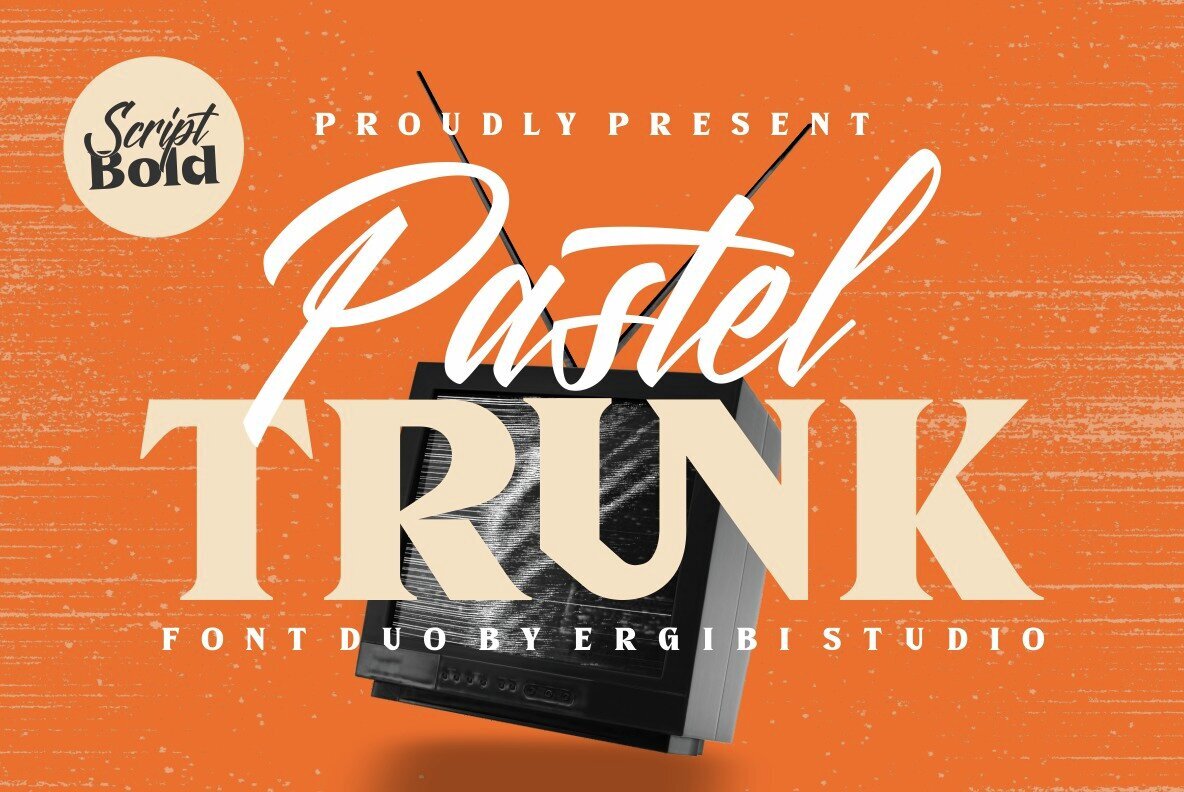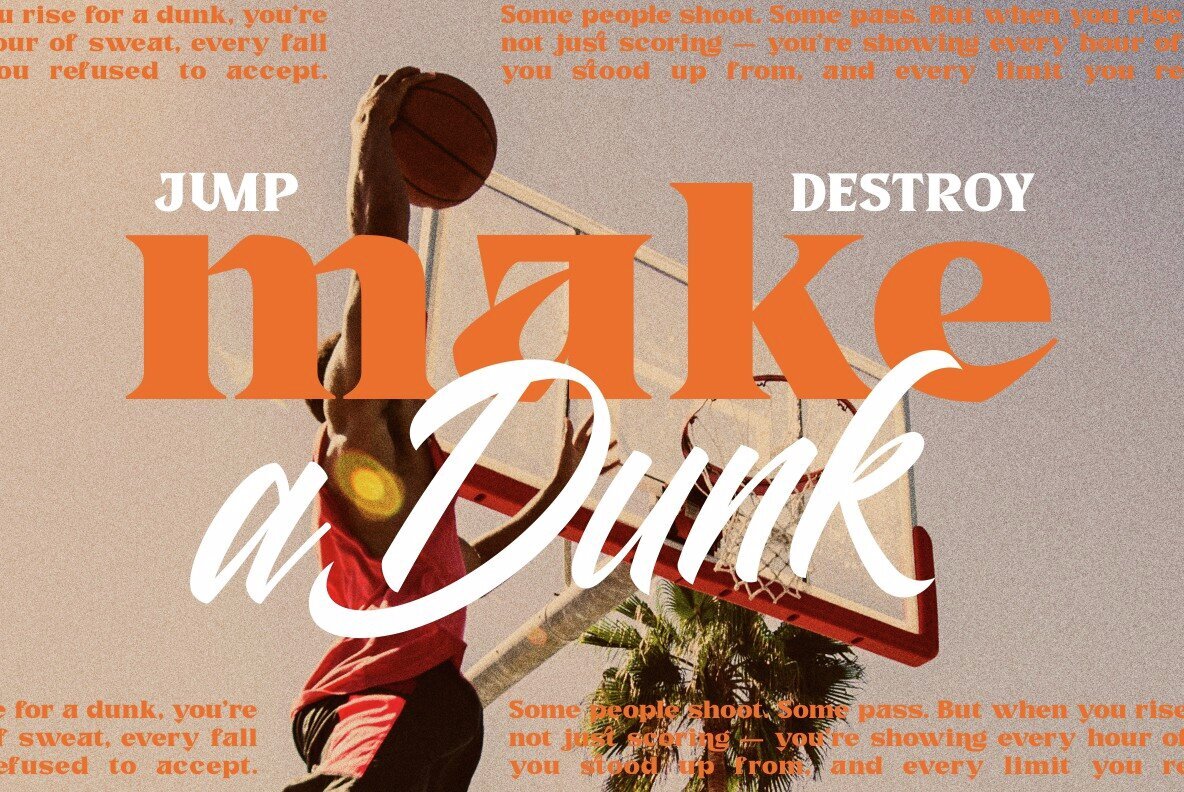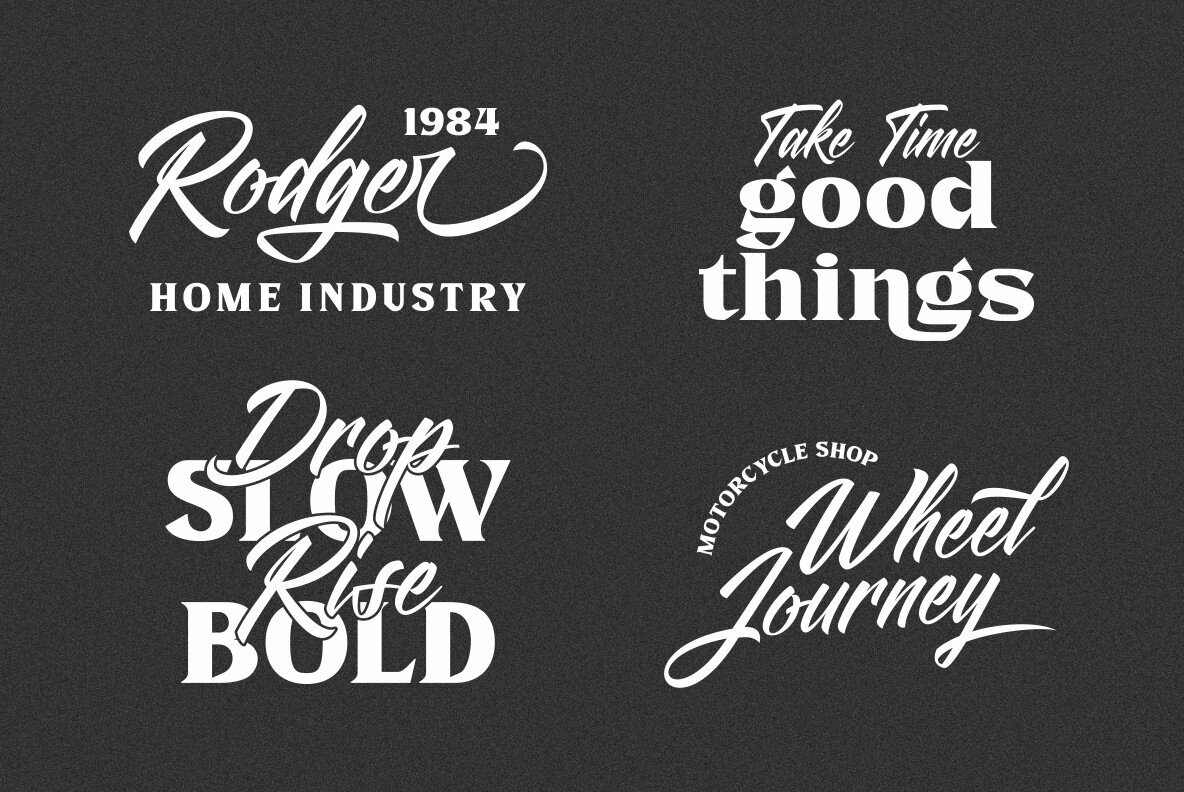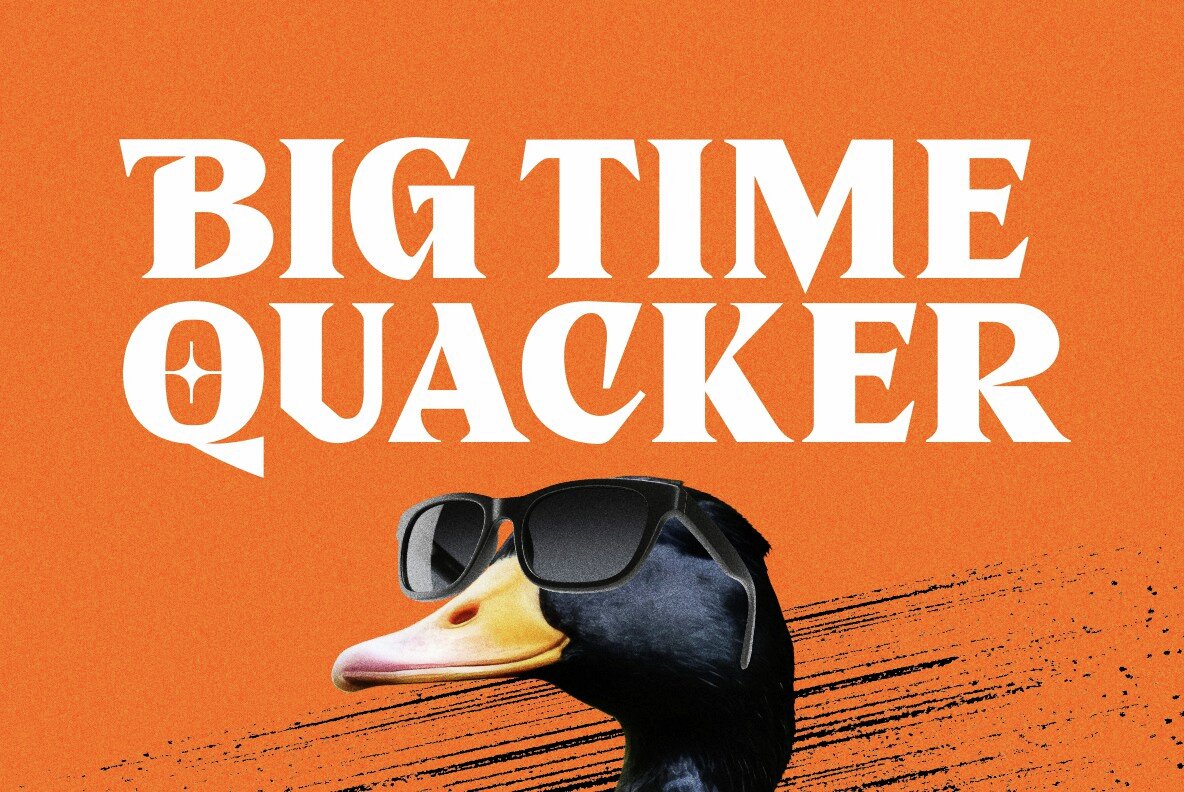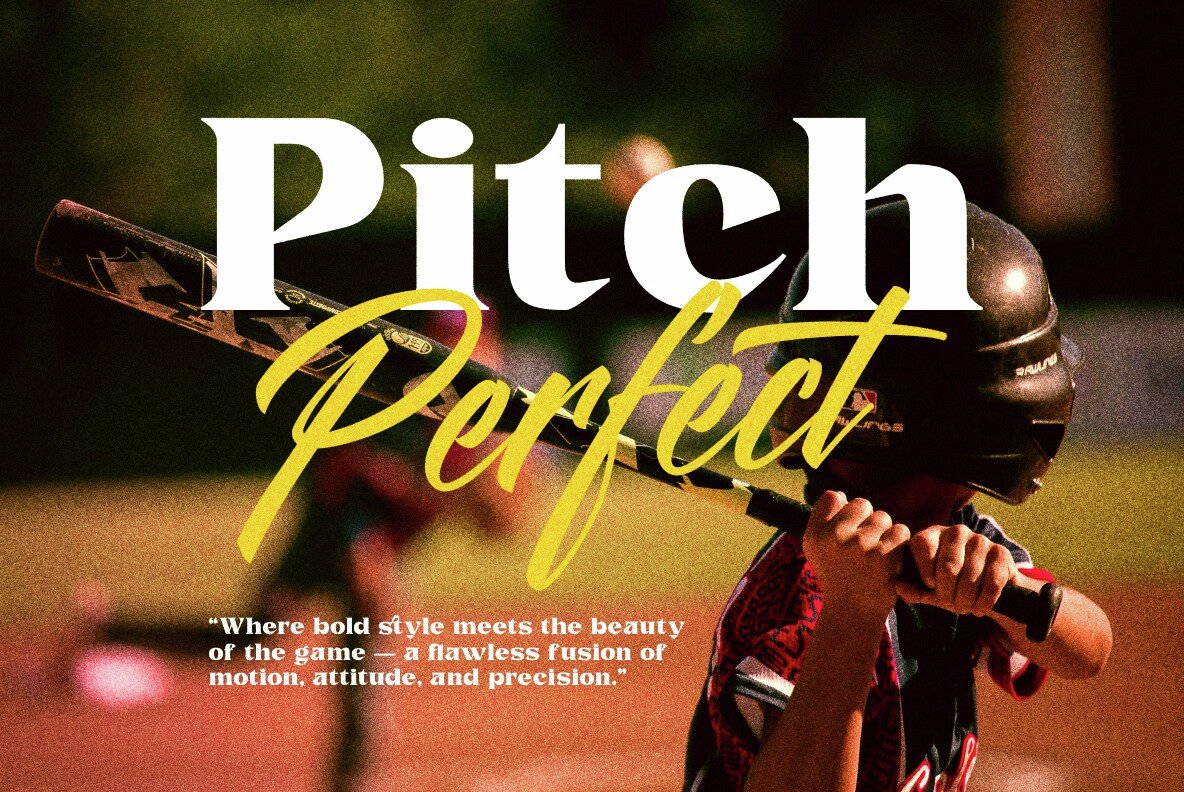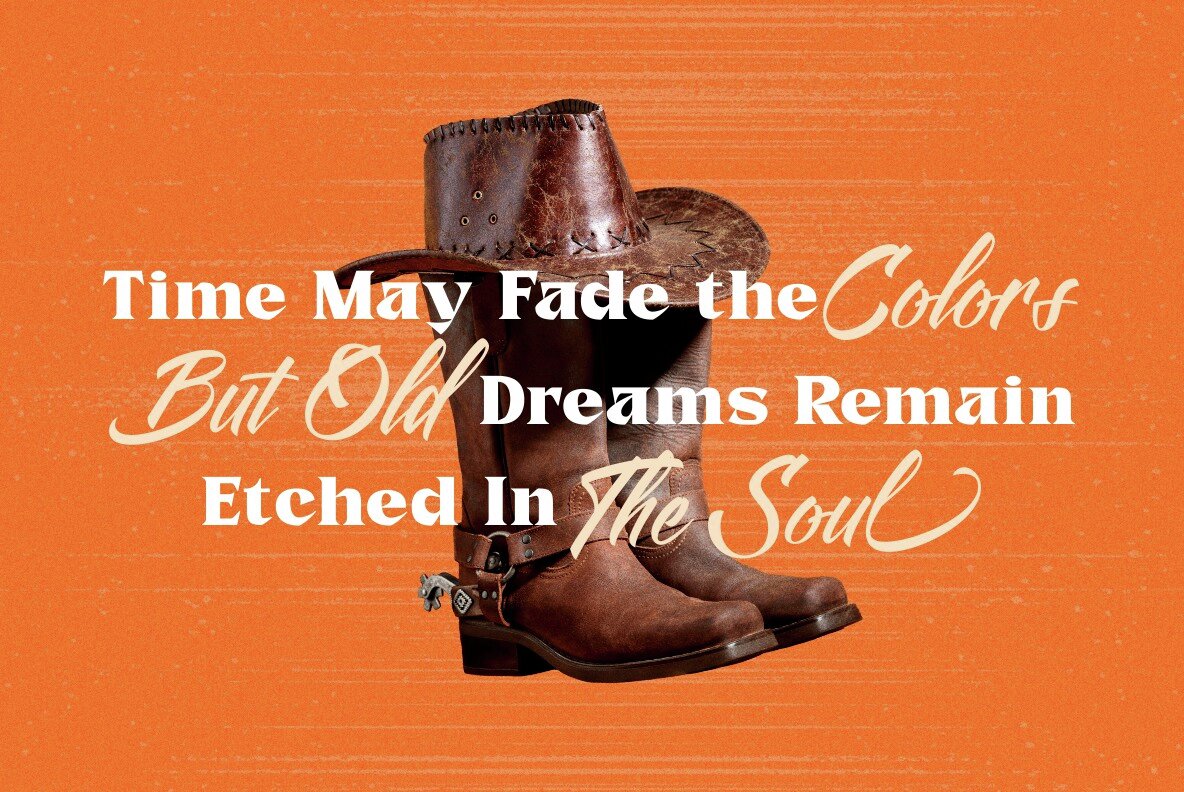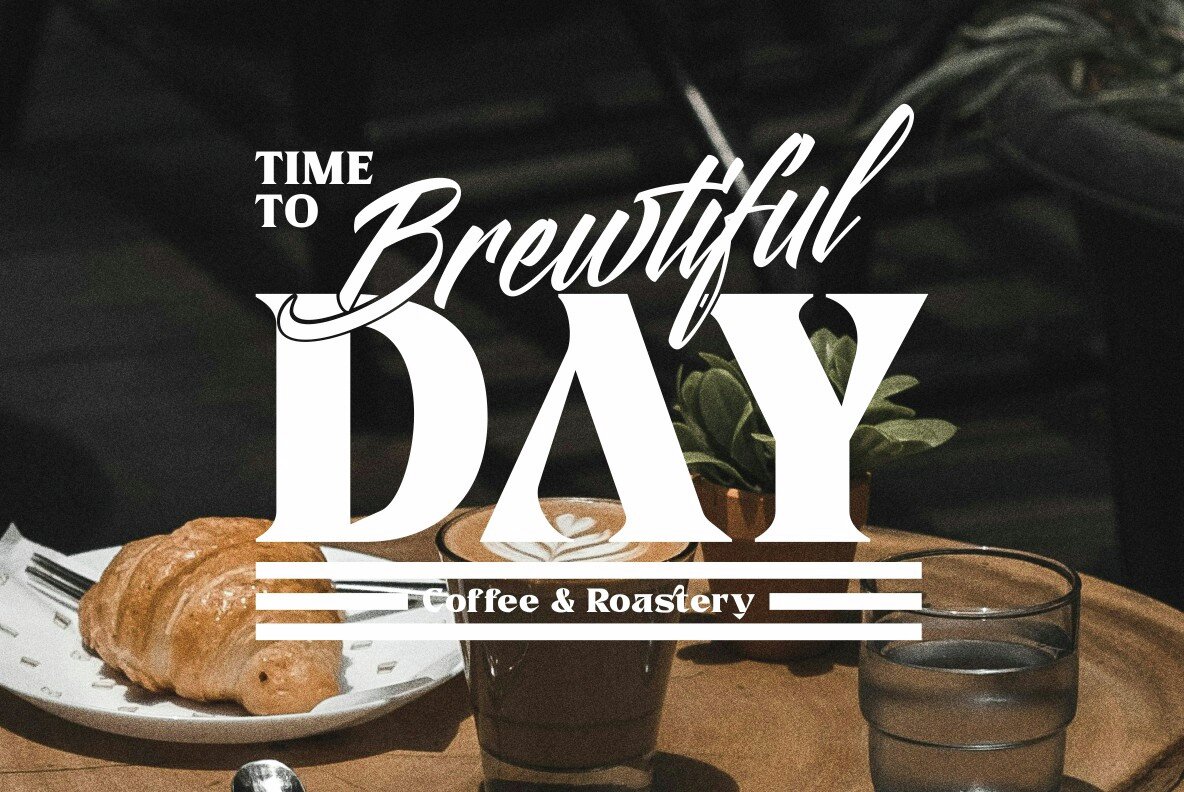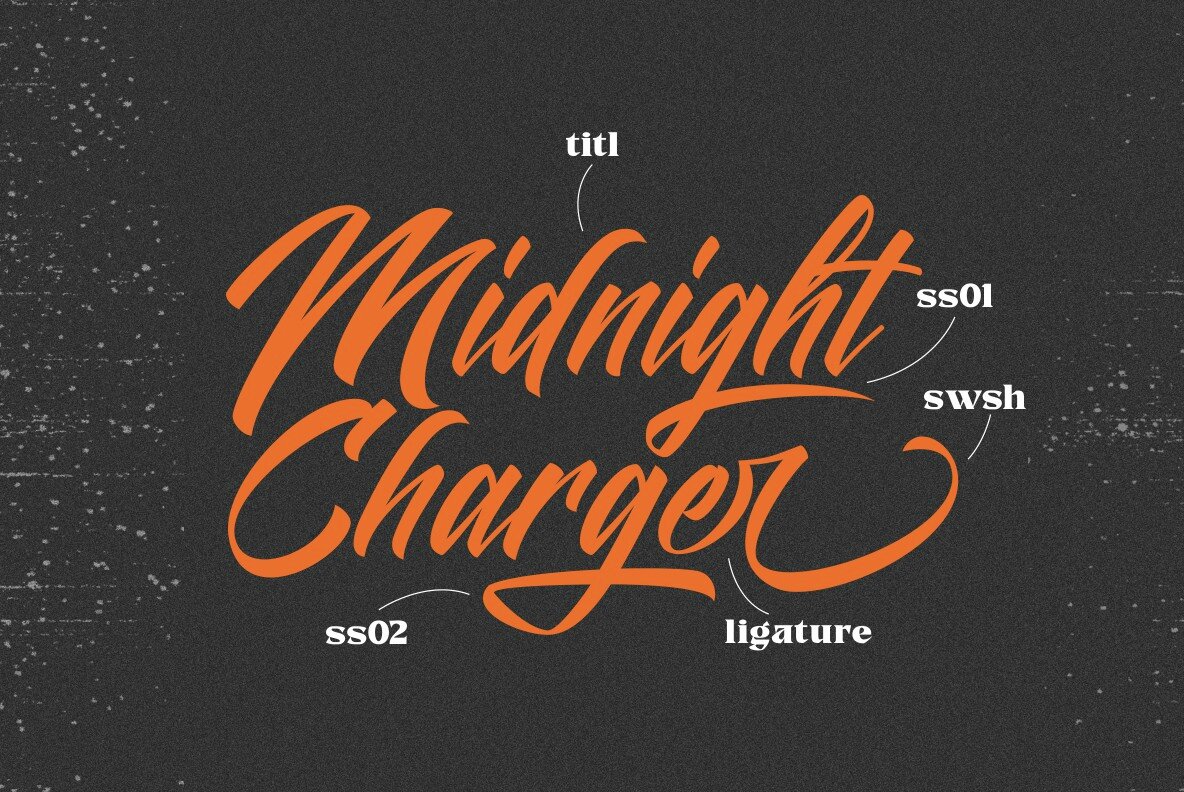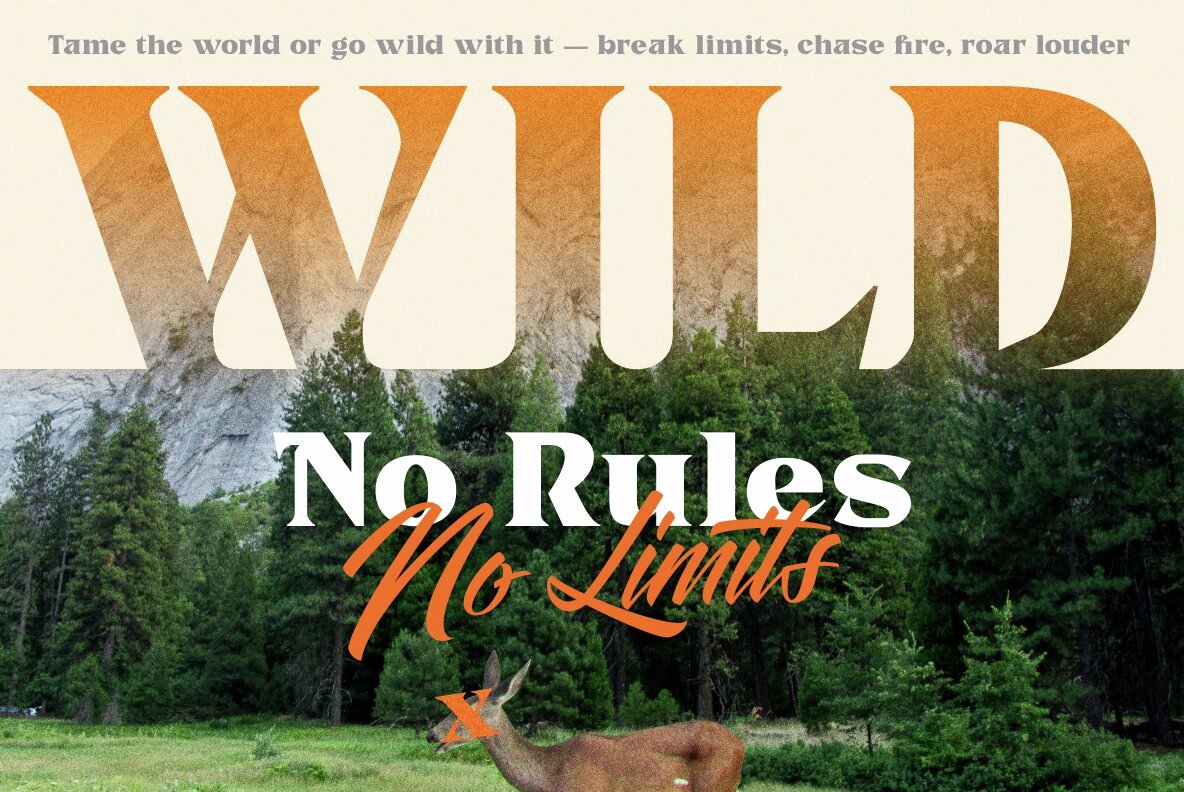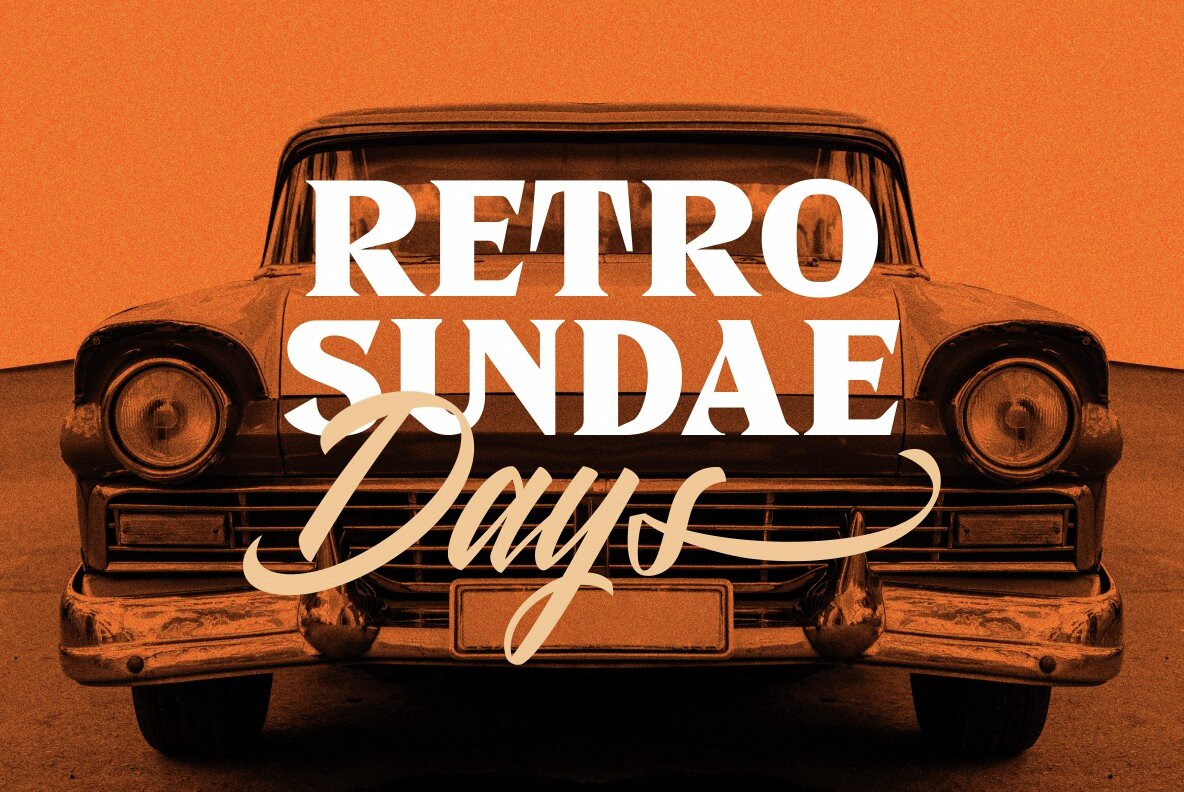
Pastel Trunk Font
Dive into the expressive world of design with Pastel Trunk, a distinctive font duo that marries the nostalgia of vintage aesthetics with the clarity of contemporary style. Featuring a dynamic retro-inspired serif alongside a smooth, handwritten script, this duo ensures a harmonious blend of tradition and modernity. The serif font exudes authority and presence, while the script offers a softer, human touch. This balance makes Pastel Trunk an excellent choice for projects that aim to embody both confidence and approachability, offering a design language that is both timeless and timely. Perfect for adding a splash of elegance and playfulness to your work.Pastel Trunk: A Fusion of Retro and Modern